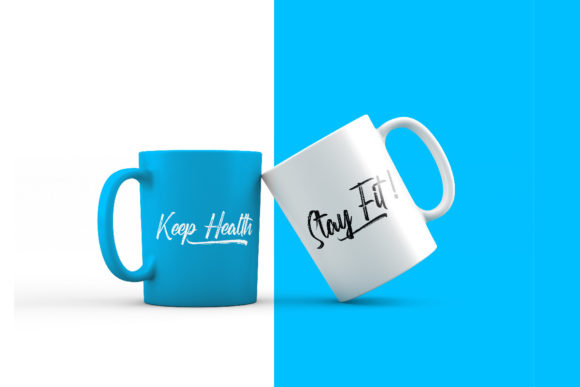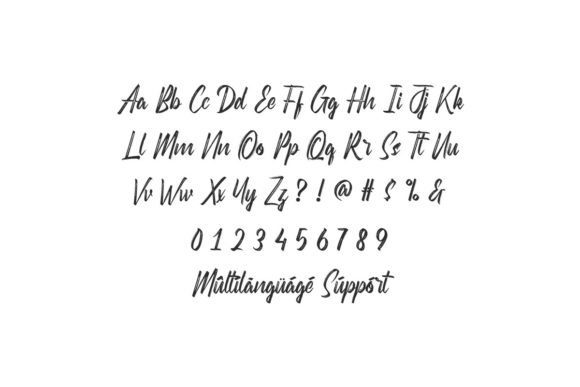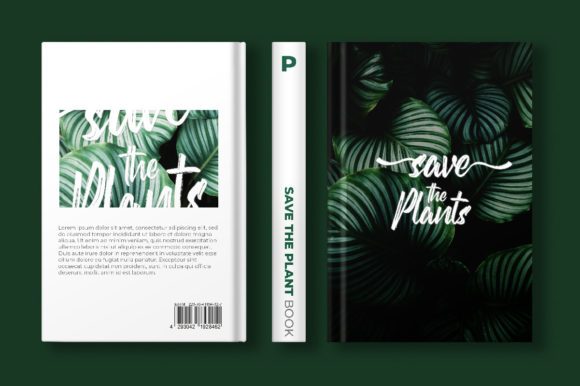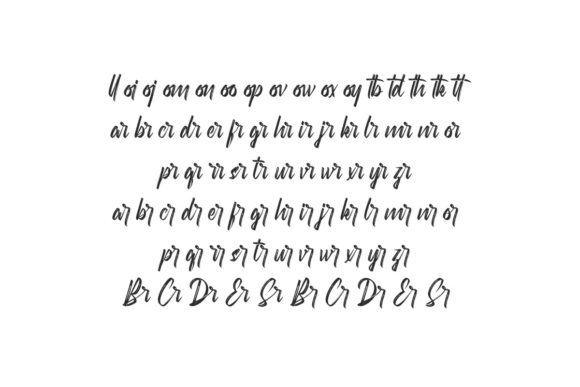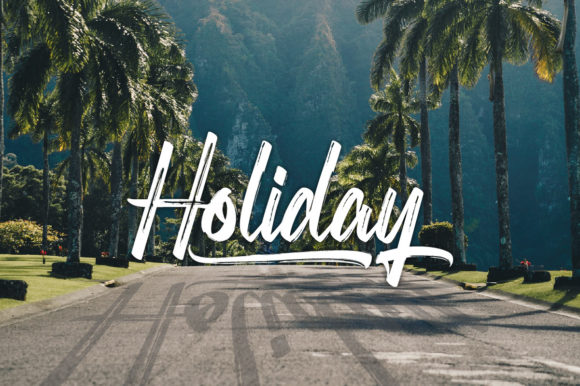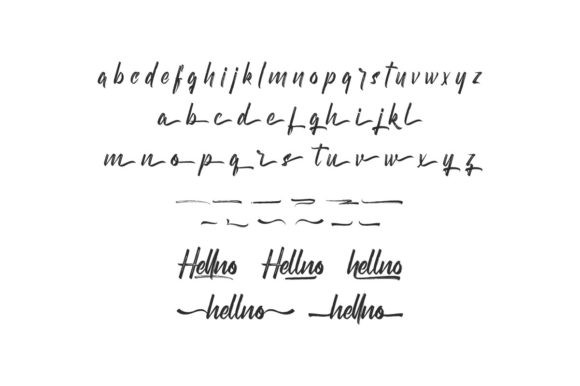
Hellno Font: The Trendy, Brushed Script Font You Need for Your Designs
Are you tired of using the same old fonts in your designs? Look no further than Hellno Font, a trendy, brushed, and flowing script font that’s perfect for crafters, designers, and anyone looking to add a touch of elegance to their work. In this article, we’ll dive into the features and benefits of Hellno Font, and explore how it can elevate your designs to the next level.
What is Hellno Font?
Hellno Font is a modern script font that’s designed to add a touch of sophistication and style to your designs. With its brushed and flowing strokes, Hellno Font is perfect for creating beautiful headings, titles, and text that stands out from the crowd. Whether you’re working on a logo, brochure, or social media graphic, Hellno Font is the perfect choice.
One of the best things about Hellno Font is that it’s PUA (Private Use Area) encoded. But what does that mean? In simple terms, PUA encoding allows you to access a wide range of glyphs and ligatures with ease. This means that you can create beautiful, intricate designs without having to worry about complicated coding or font editing.
With Hellno Font, you can access a wide range of alternative characters, ligatures, and swashes, making it easy to customize your designs and add a personal touch. Whether you’re a seasoned designer or just starting out, PUA encoding makes it easy to get the most out of Hellno Font.
Features and Benefits of Hellno Font
So, what makes Hellno Font so special? Here are just a few of its key features and benefits:
- Trendy and Modern Design: Hellno Font has a fresh, modern design that’s perfect for contemporary designs.
- Brushed and Flowing Strokes: The font’s brushed and flowing strokes add a touch of elegance and sophistication to your designs.
- PUA Encoding: With PUA encoding, you can access a wide range of glyphs and ligatures with ease.
- High-Quality Design: The font is designed to high-quality standards, ensuring that it looks great in any design.
- Headings and Titles: Use Hellno Font to create beautiful headings and titles that stand out from the crowd.
- Logos and Branding: Hellno Font is perfect for creating custom logos and branding materials that reflect your business’s personality.
- Social Media Graphics: Add a touch of elegance to your social media graphics with Hellno Font.
- Brochures and Flyers: Use Hellno Font to create beautiful, eye-catching brochures and flyers that grab attention.